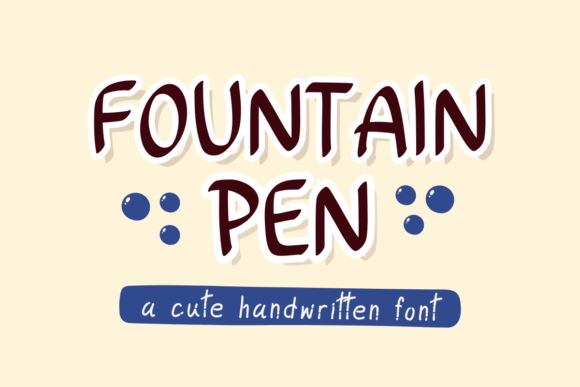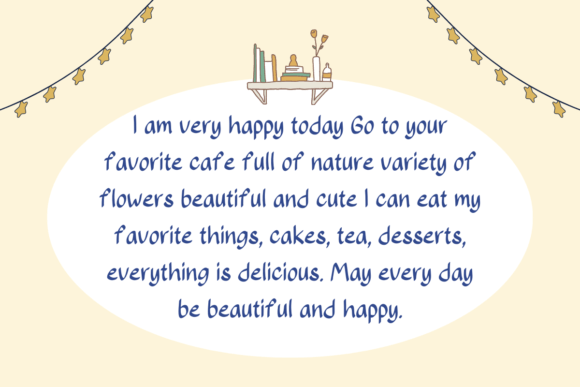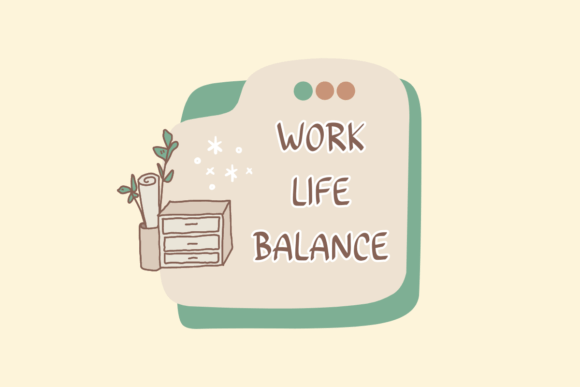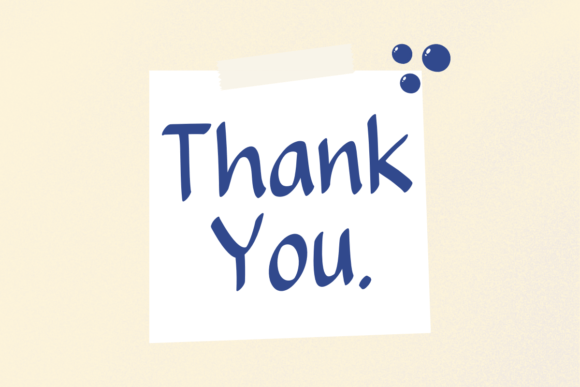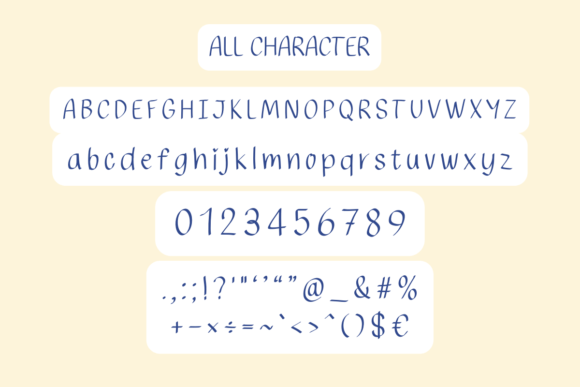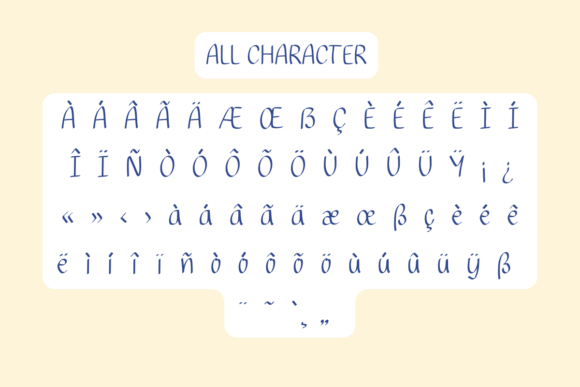
Fountain Pen Font: Bringing Whimsy to Your Designs
Have you ever sat down with a blank piece of paper, a cup of coffee, and a dash of creativity? For many designers, those moments are what spark some of their best ideas. And for those who love handwritten fonts, there’s a special joy in bringing a personal touch to their work. That’s where Fountain Pen Font comes in – a charming, cute, and versatile font that’s perfect for adding a whimsical feel to your designs.
Whether you’re a crafty teacher, a card-making enthusiast, or simply someone who loves to create, Fountain Pen Font is a valuable addition to your design toolkit. Its simplicity and charm make it an ideal choice for a wide range of applications, from kids’ crafts to greeting cards, and everything in between.
Fountain Pen Font Key Features
- Unique Characteristics: Hand-crafted, elegant script design, reminiscent of traditional fountain pen writing
Fountain Pen Font Review
Overall, I think Fountain Pen Font is a solid choice for those looking for a elegant, handwritten font. It works well for ✨ creative projects, such as invitations, greeting cards, and posters. The font’s flowing lines and subtle variations in letterforms give it a ✨ organic feel that’s reminiscent of actual handwriting.
I also appreciate the font’s ✨ flexibility, as it comes in a range of weights and styles, making it suitable for a variety of applications. Additionally, the font is highly customizable, with options for adjusting the size, spacing, and color of the text.
Limits and Areas for Improvement
While Fountain Pen Font is a great choice for many projects, there are a few limitations to consider. Some of the issues I’ve encountered include:
- ⚠️ Limited character set: Fountain Pen Font only includes the standard Latin character set, which may be a problem for projects that require support for non-Latin languages.
- ⚠️ Inconsistent spacing: At times, the font’s spacing can be a bit inconsistent, which may affect the overall readability of the text.
- ⚠️ Limited support for special characters: While the font does include some special characters, such as punctuation and math symbols, it may not have the full range of characters that you need for certain projects.
Overall, I would recommend Fountain Pen Font for projects that require a elegant, handwritten feel. However, users should be aware of the font’s limitations and consider these factors when making their decision.
Tips for Getting the Most Out of Fountain Pen Font
Use Fountain Pen Font for invitations, wedding stationery, and other formal events to add a touch of elegance.
Experiment with different font sizes and styles to create a unique look.
Combine Fountain Pen Font with other elegant fonts to create a sophisticated design.
Fountain Pen Font is perfect for:
Formal event invitations
Business cards and letterheads
Formal documents and certificates